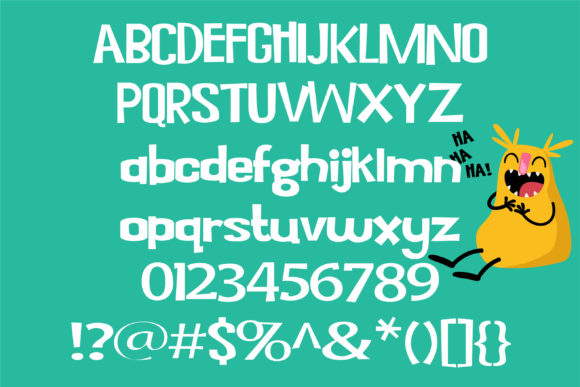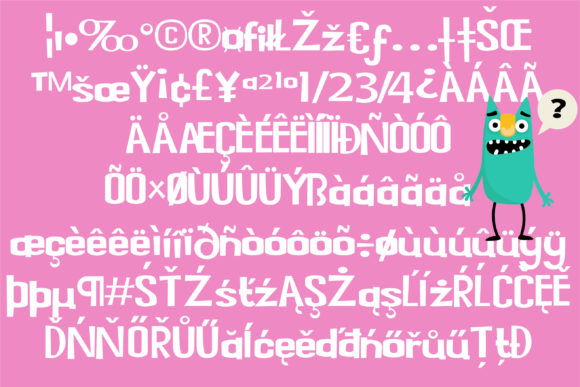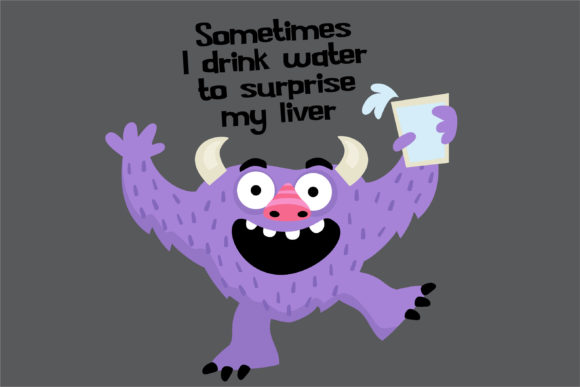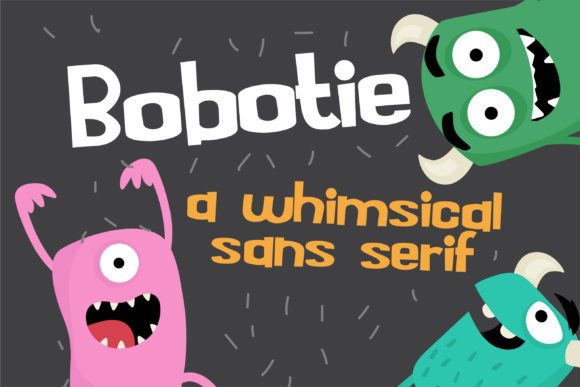
Introduction to Bobotie Font
Bobotie is a whimsical and retro looking sans serif font.
It is the best choice for creating eye catching logos, branding and quotes This font is perfect for children themed designs, especially when combined with bright colors.
Key Features of Bobotie Font
Why Choose Bobotie Font?